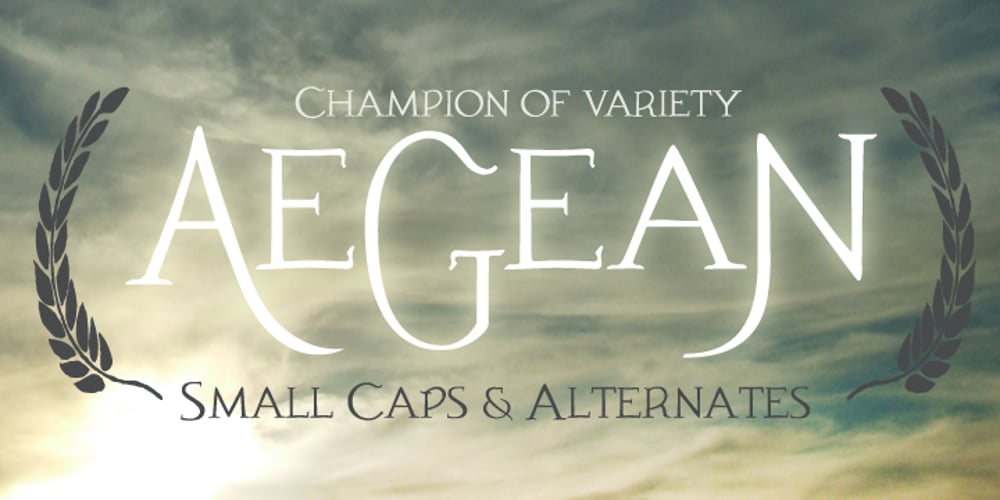
Aegean Font Family was designed by Matt Frost and published by Matt Frost. Aegean contains 3 styles and family package options. Aegean is a Hellenic/Roman/Horror/Classical/Whatever — what do any of these things mean anymore when there’s ONE font (and you know who I mean) that’s doing ALL of the signifying work for anything Old/Official/Prestigious/Scary/Whatever. Since we’ve discarded the significance of just about anything in this age — down to our words — why not pick up a font that’s not a system font for a change? For more, trip on over to http://facebook.com/frostfoundry EXTRA FEATURES Alternate R’s and r’s. Alternate S’s and s’s. Two sizes of interrobangs. Curly brackets are laurels so you can go win the Palme d’Or. All fonts support European, Eatern European, Romanian, Baltic, and Turkish. Say it with me brothers and sisters: “For the few short years I have on this planet, I’m gonna get real weird with it.” – Danny DeVito